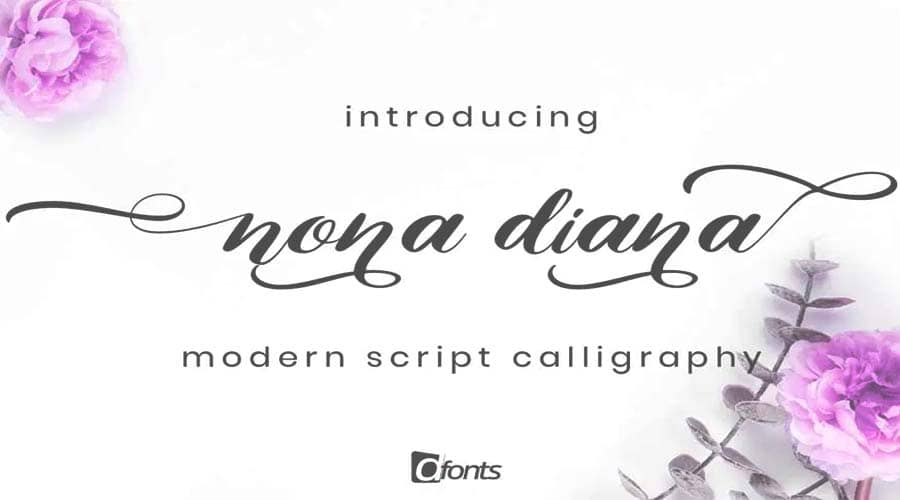
Nona Diana Script Font
Nona Diana Script Font is a severe yet light-hearted Script and Calligraphy font. On August 24, 2019, attype studio intended and authored the font.
This charming script inspired Nona Diana Script Font. The font is a sophisticated script calligraphy font with a front swash and an ending swash for lowercase glyphs, which you can combine to create the perfect phrase for your design. The font in both TrueType and OpenType formats appear to be available.
Nona Diana Script Font is ideal for designs such as banners, book covers, t-shirts, branding, advertising, social media posts, quotes, weddings, and photojournalism. The beautiful Script font can also be used in making various wallpapers. The font has casually been used in making multiple covers of greeting cards. The font instantly gives an elegant finish to any work for its modern calligraphic vibes.